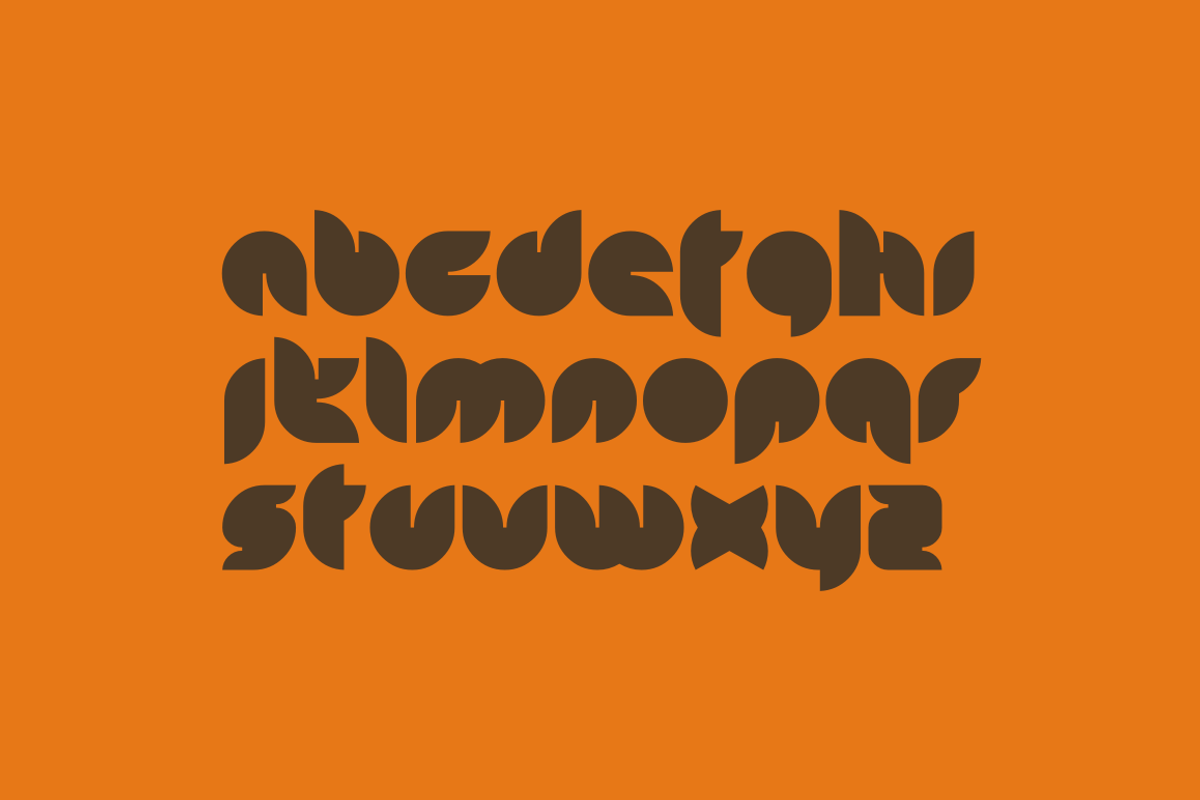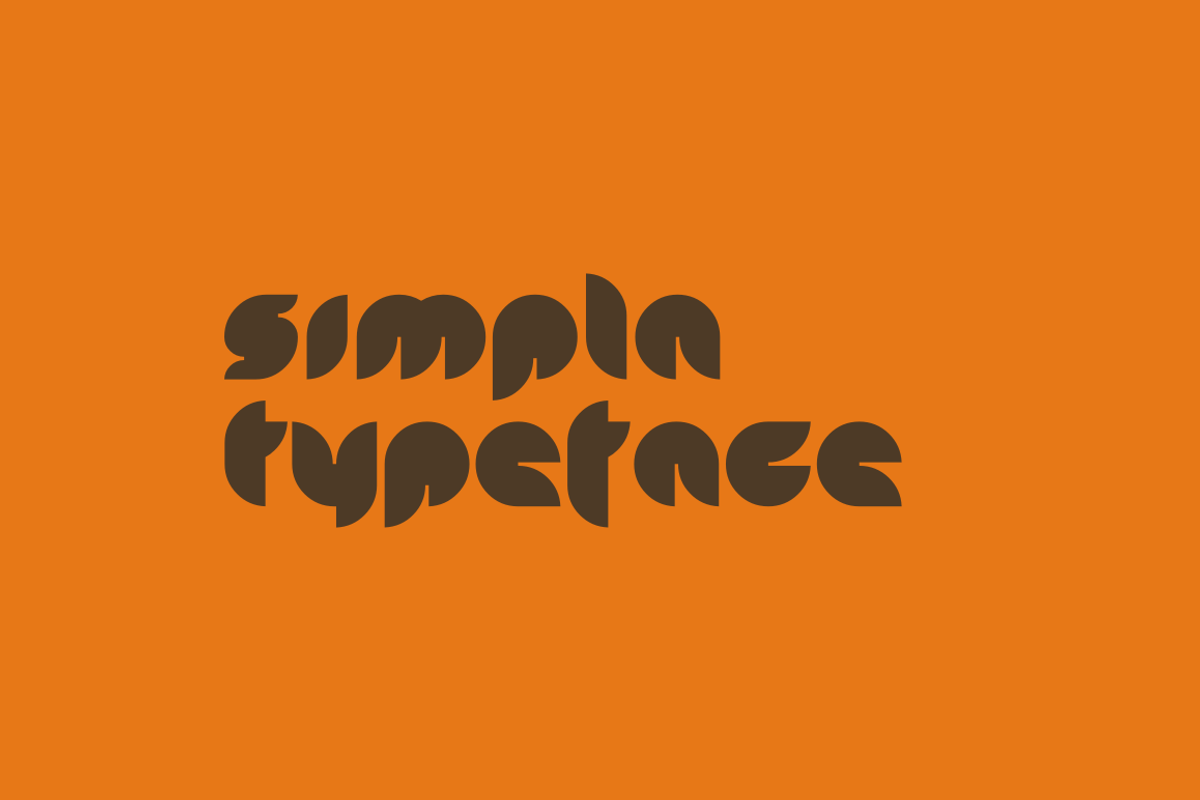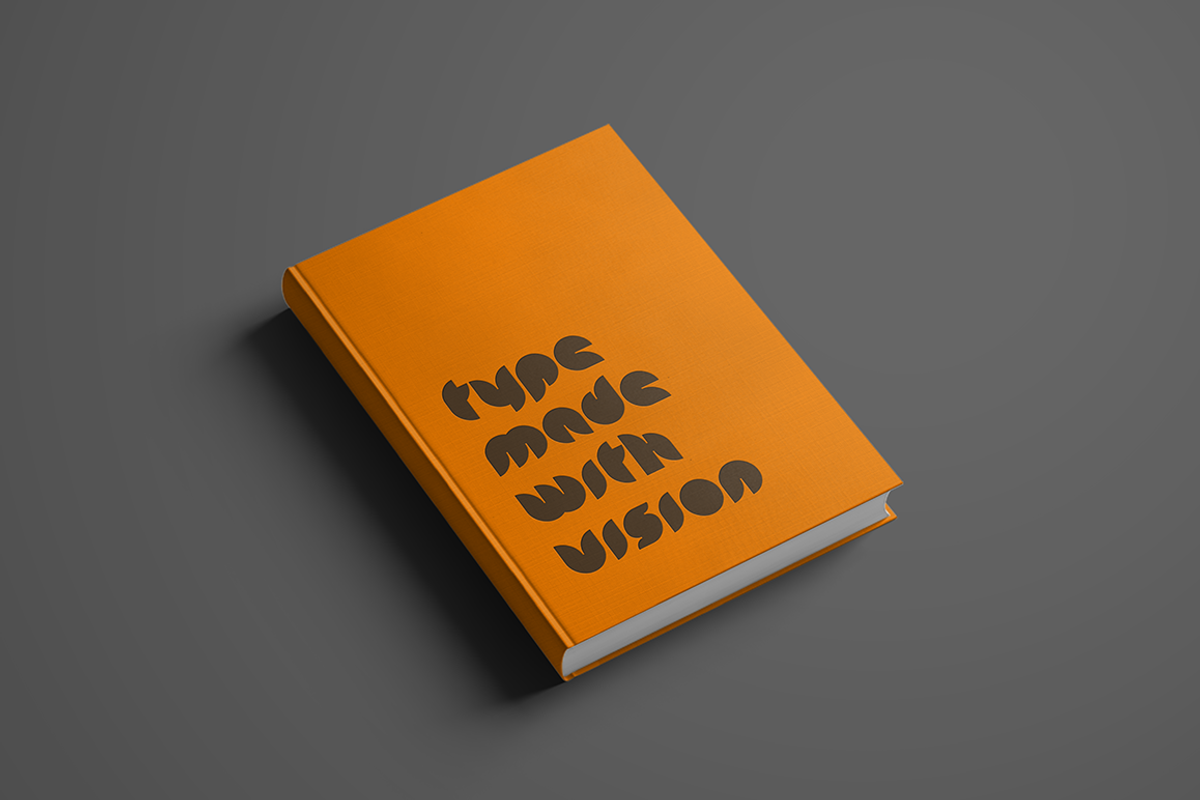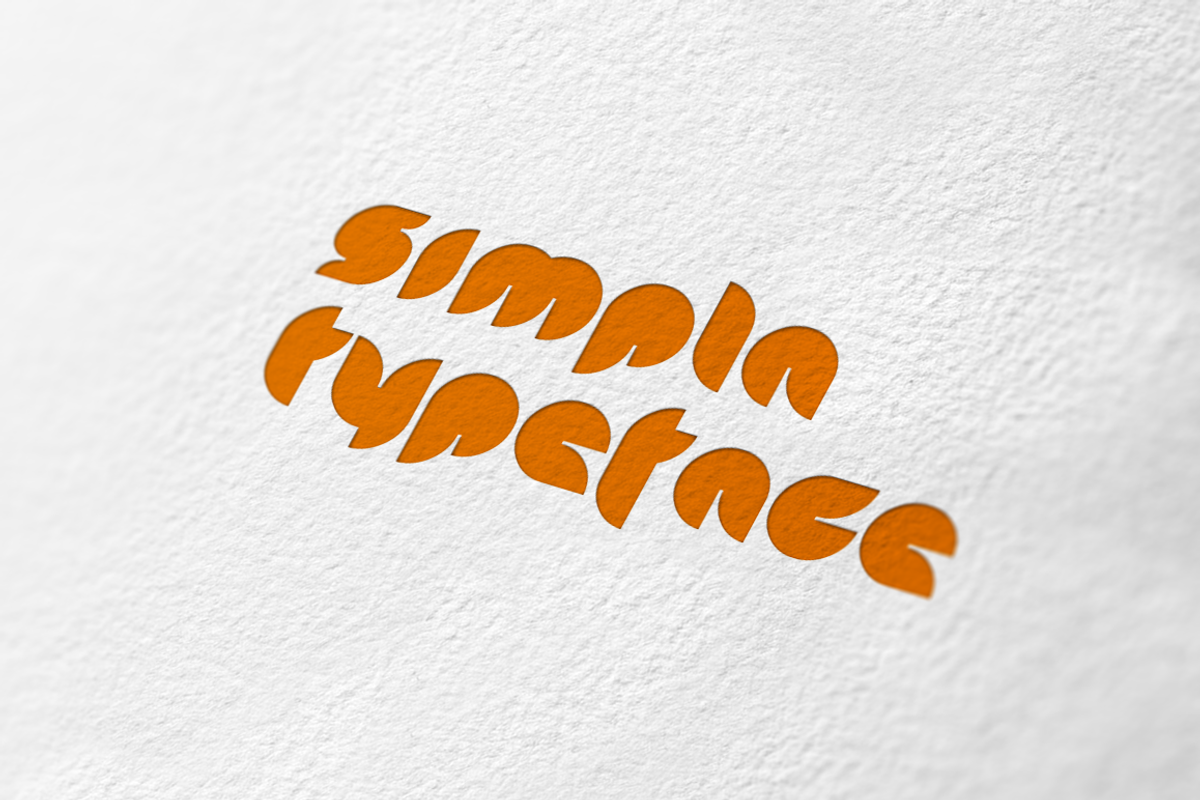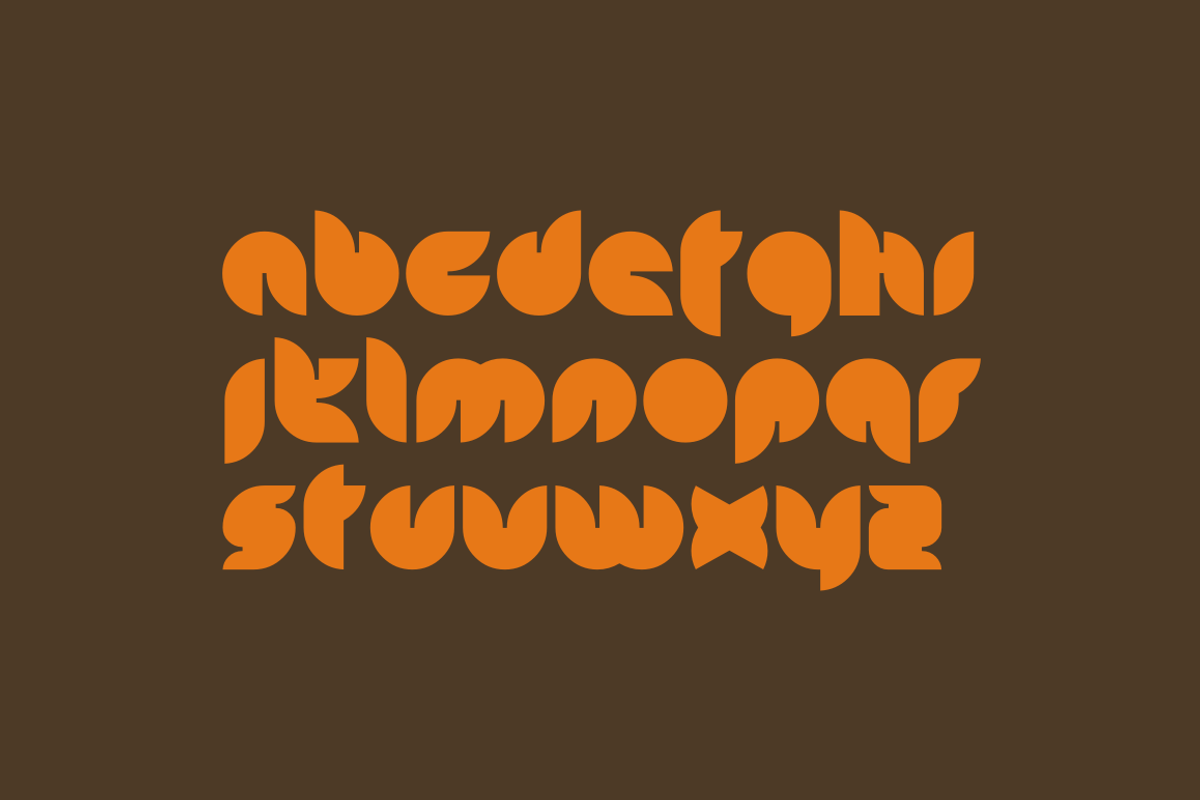
Simpla typeface
Simpla typeface by Michał Pieczyński is a font selected for branding, posters, packaging, typography.
Why Simpla typeface is worth a look
Simpla typeface by Michał Pieczyński fits naturally into Branding, posters, packaging, typography.